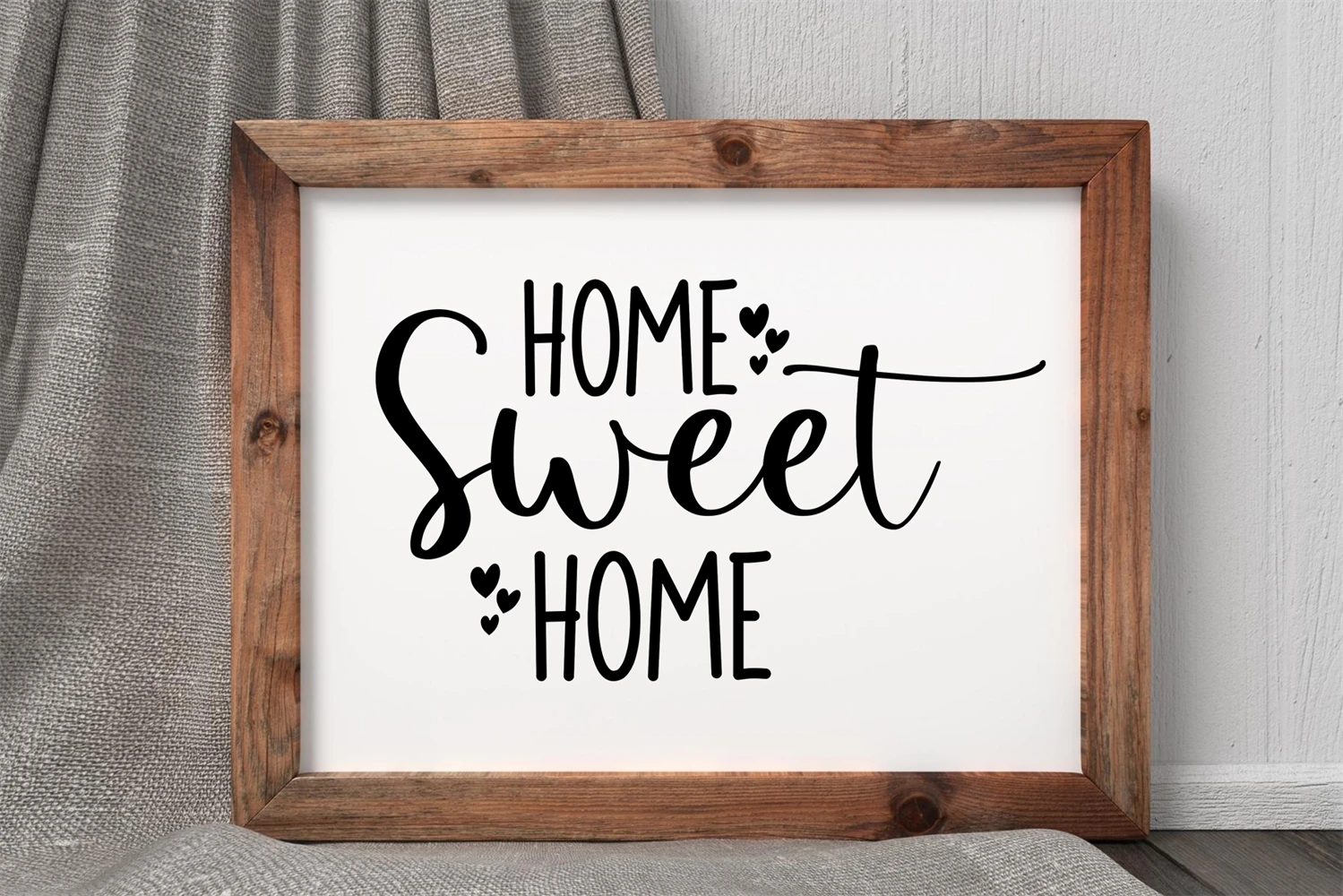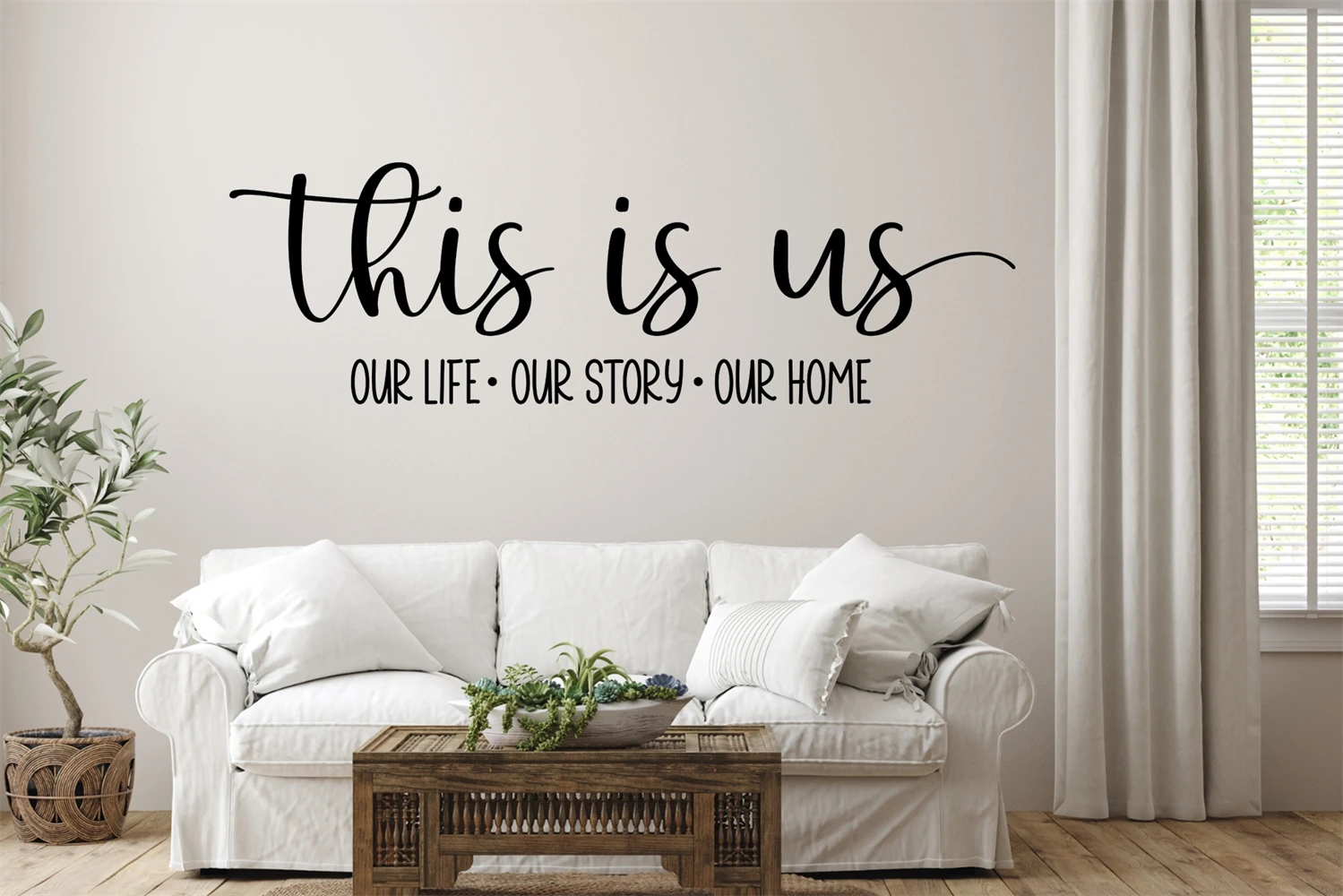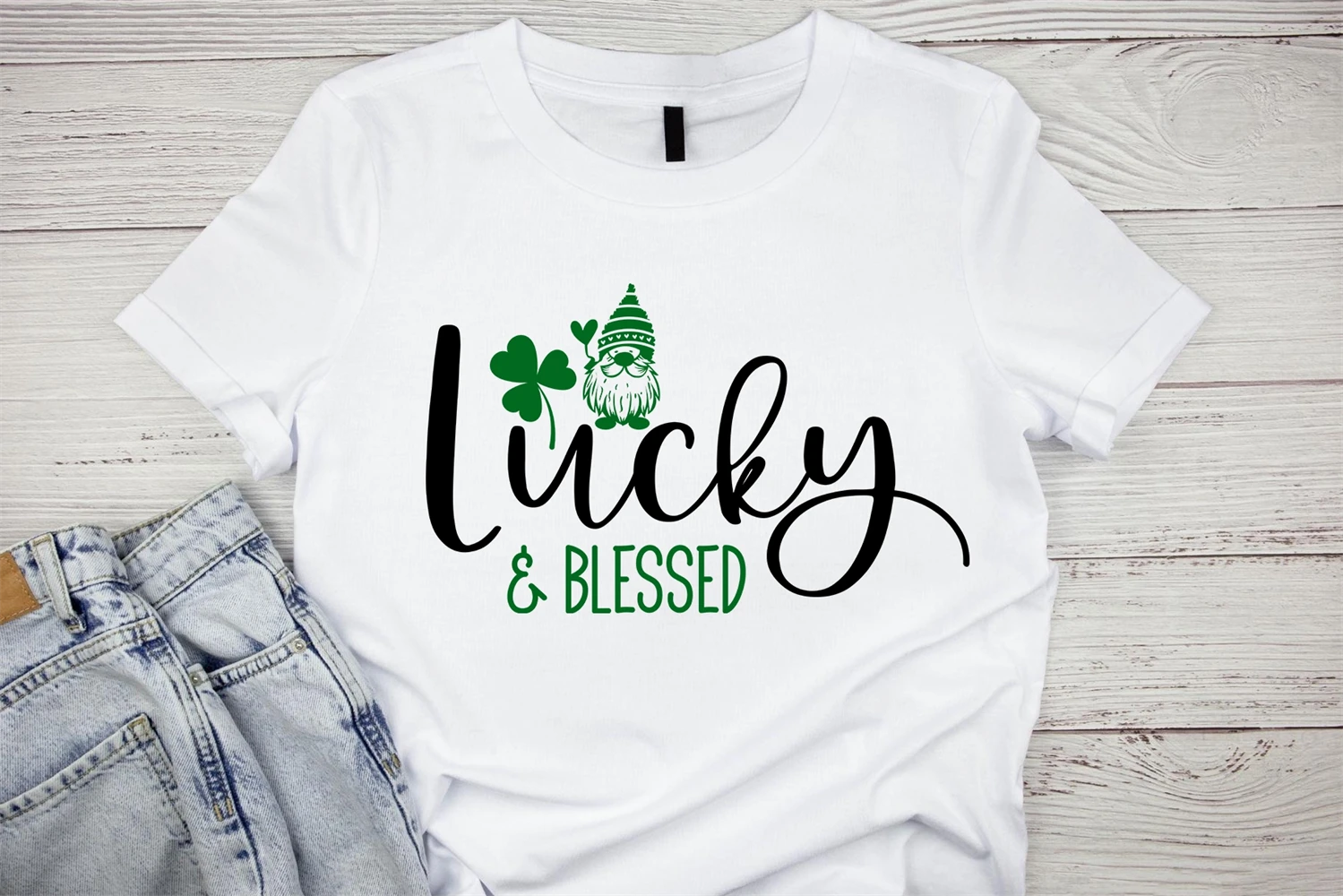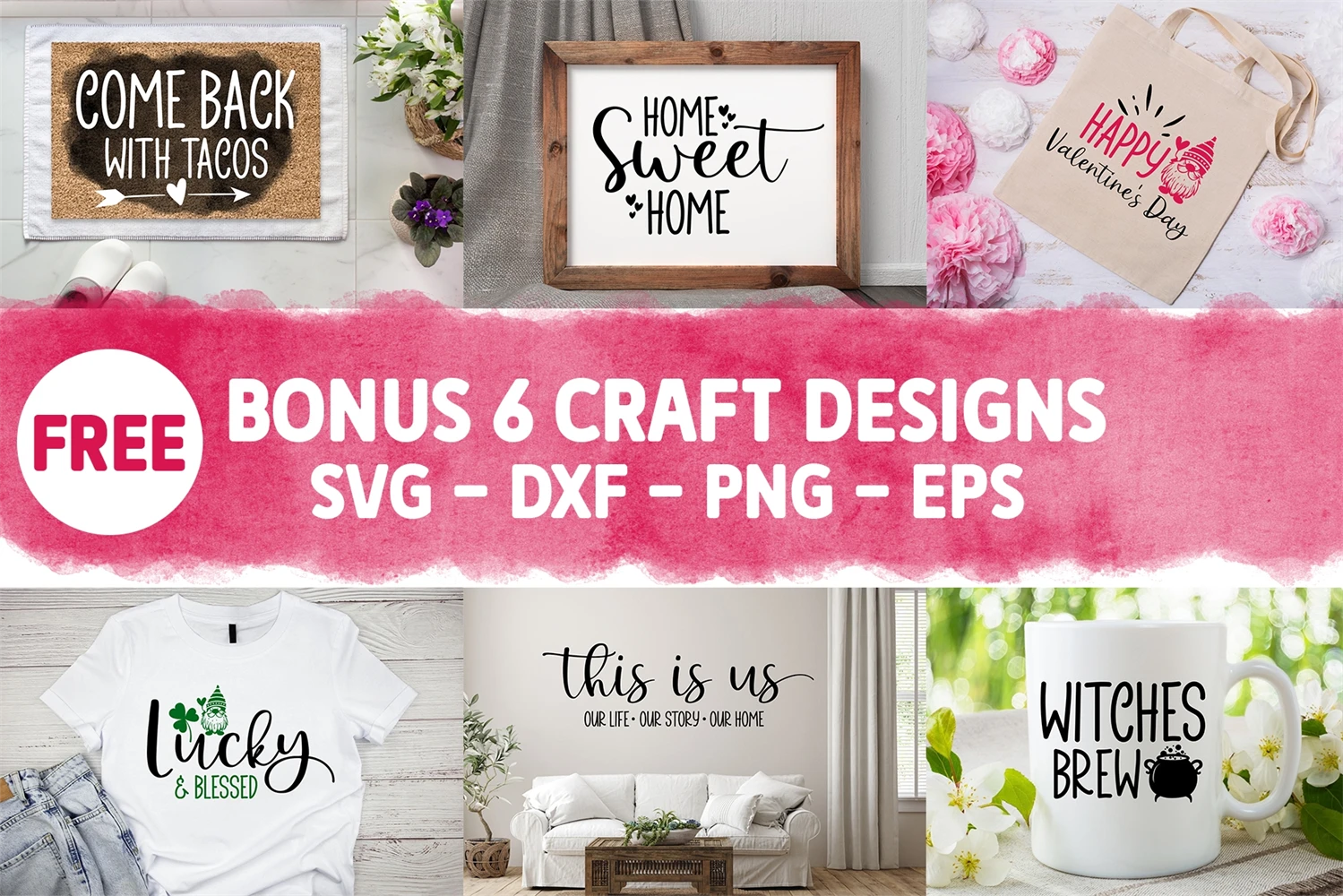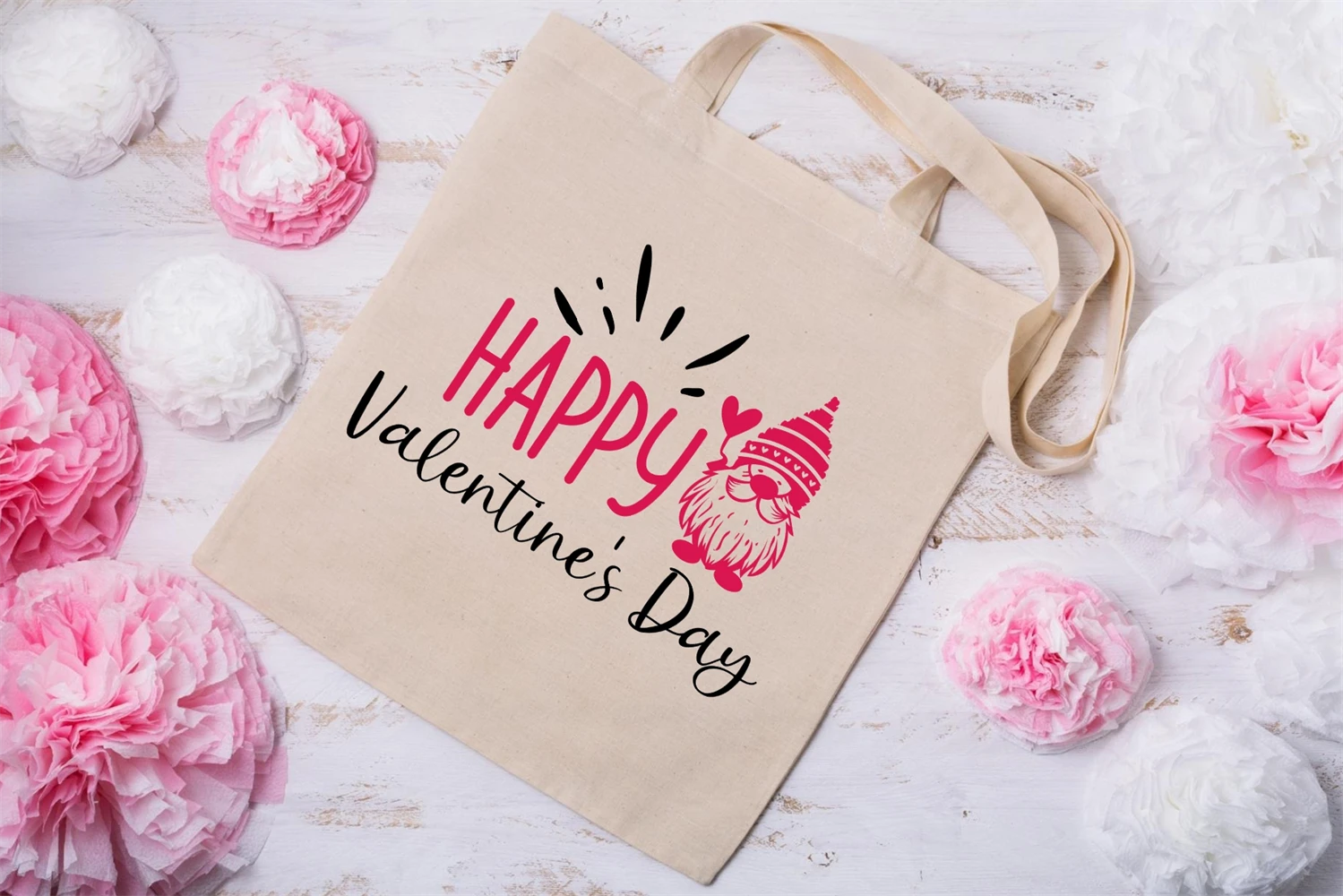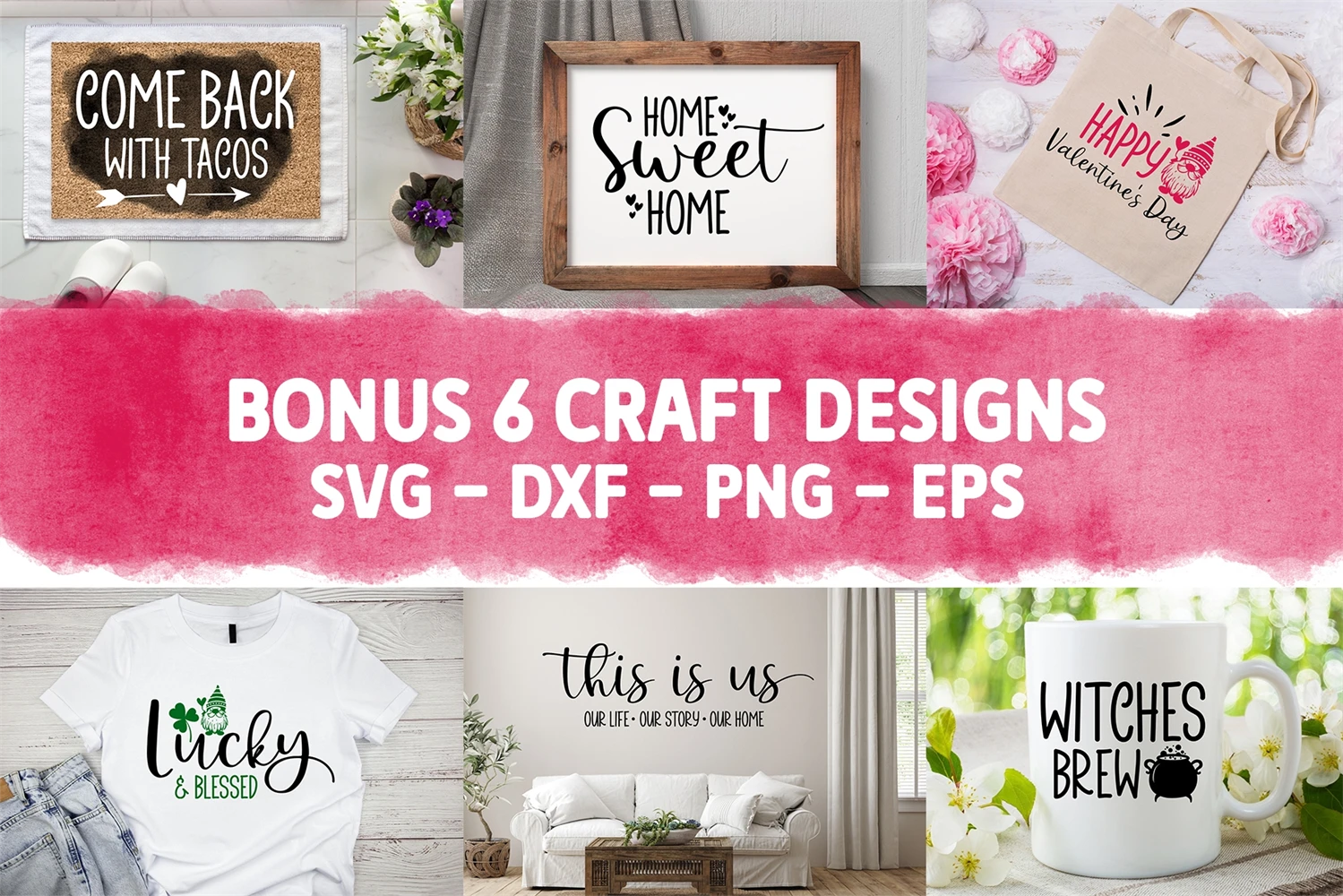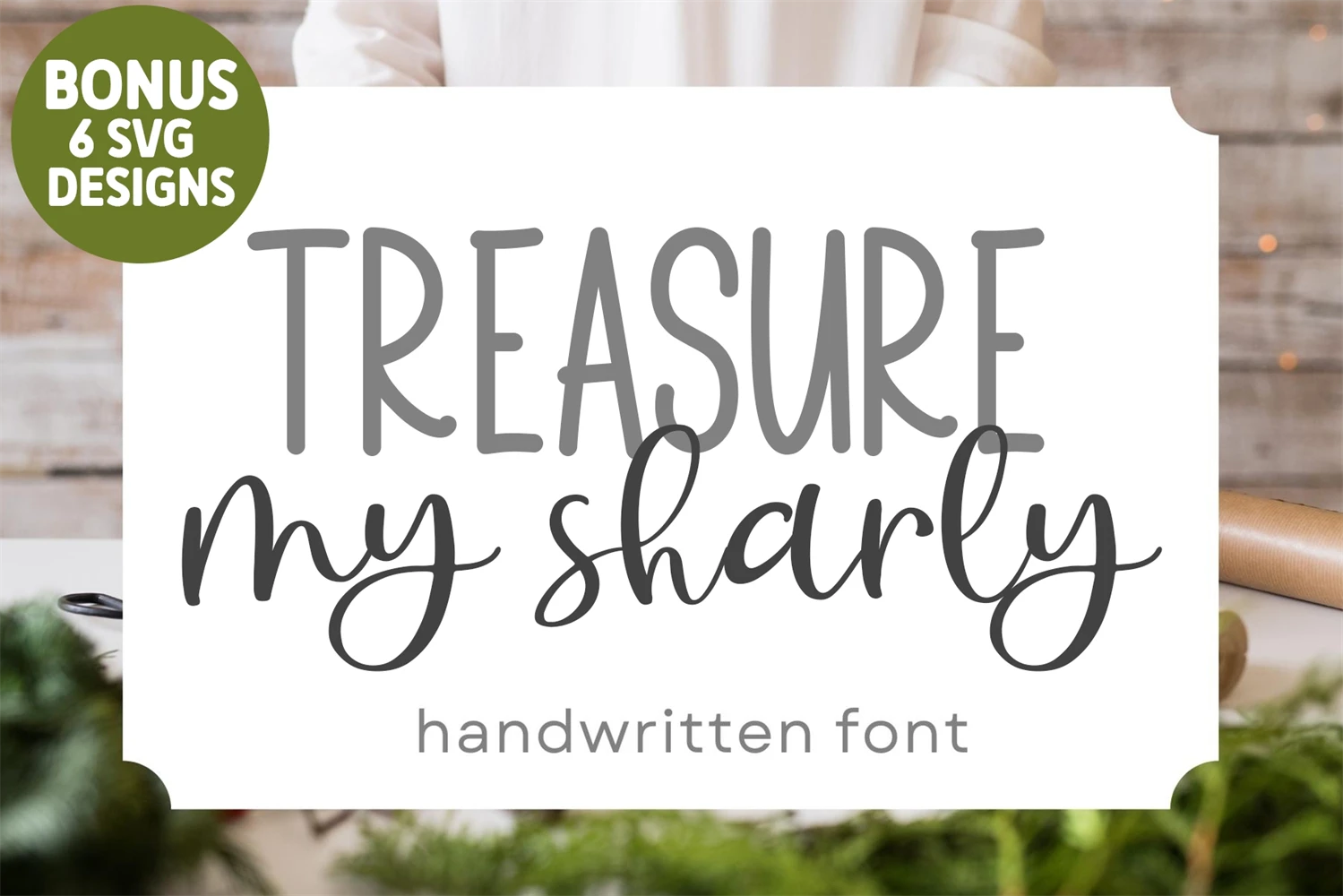
Treasure My Sharly - Handwritten Script Font
This font is perfect for svg designs, shirts, crafts, procreate, cricut projects, branding, blogs, logos, invitations and more!
Most accent characters included.